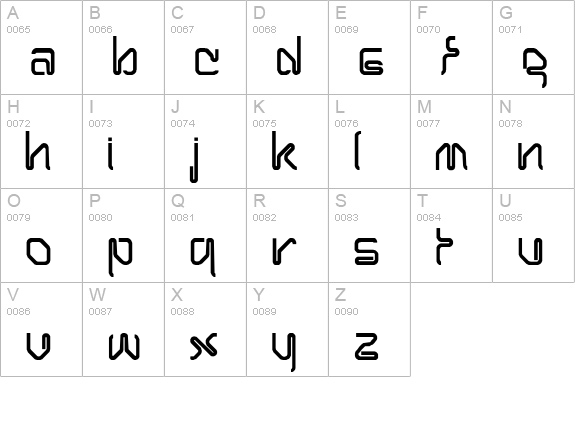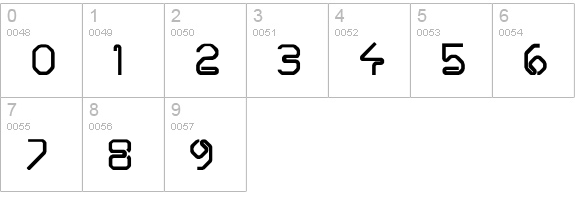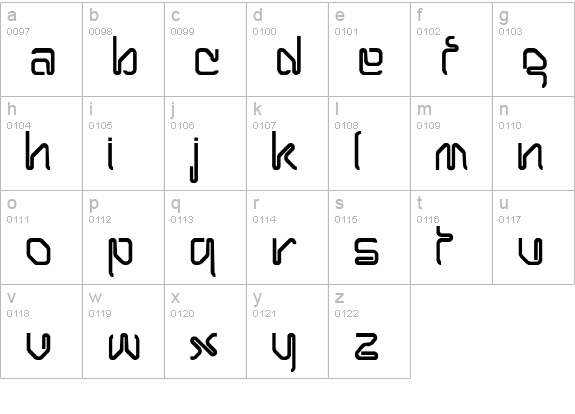
Clippin-Normal is the standard, neutral variant in the Clippin typeface family \xE2\x80\x94 well suited to general body text, paragraphs, and standard typographic work.
Clippin-Normal font is a modern and versatile typeface that strikes the perfect balance between elegance and readability. Its clean lines and simple design make it a great choice for a wide range of design projects, from branding to editorial work. Whether you're looking to create sleek logos or stylish headlines, Clippin-Normal is sure to make your text stand out. The best part? Clippin-Normal font is absolutely free to download at FontsMarket.com. So you can enhance your designs with this high-quality typeface without breaking the bank. Don't miss out on the opportunity to add Clippin-Normal to your font collection today!